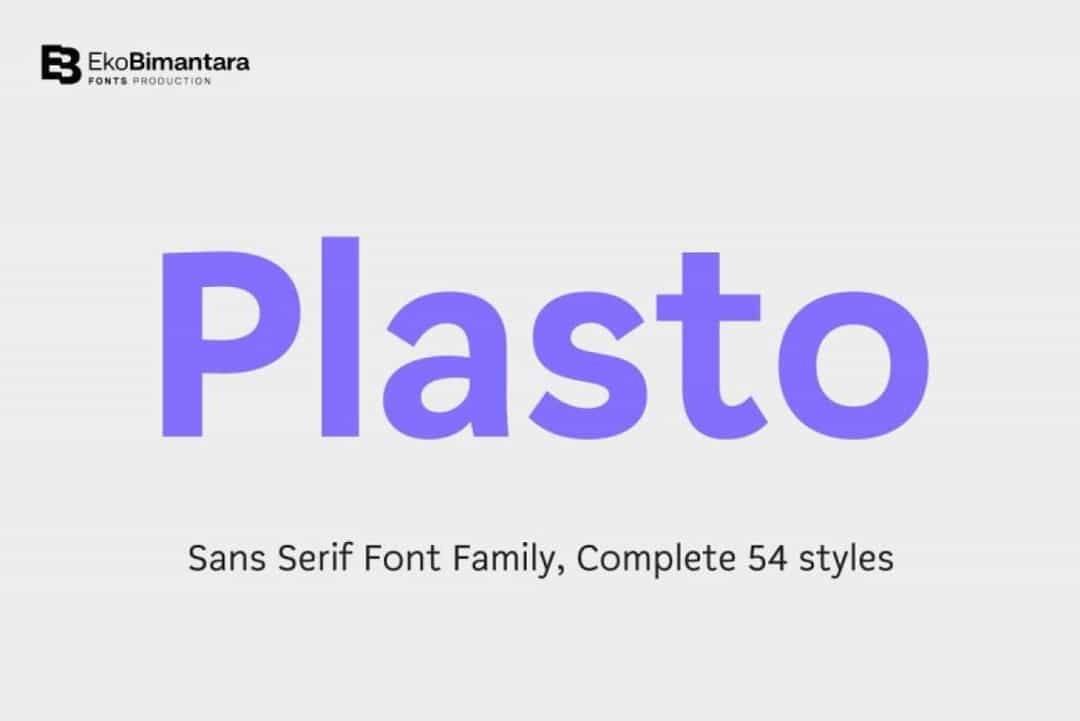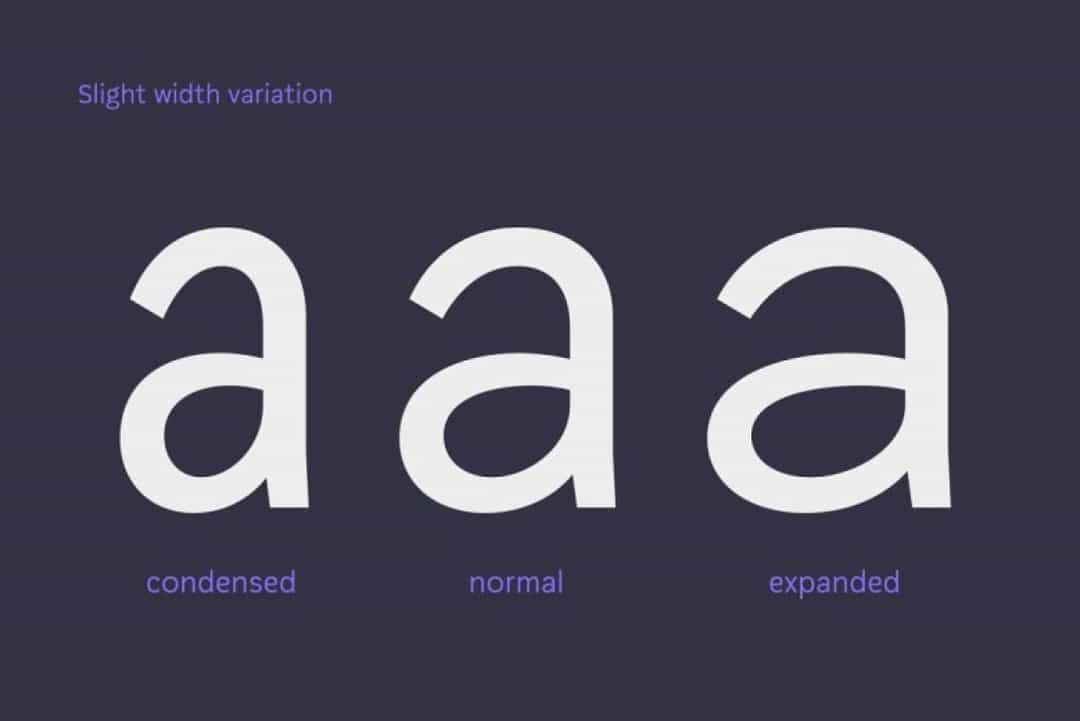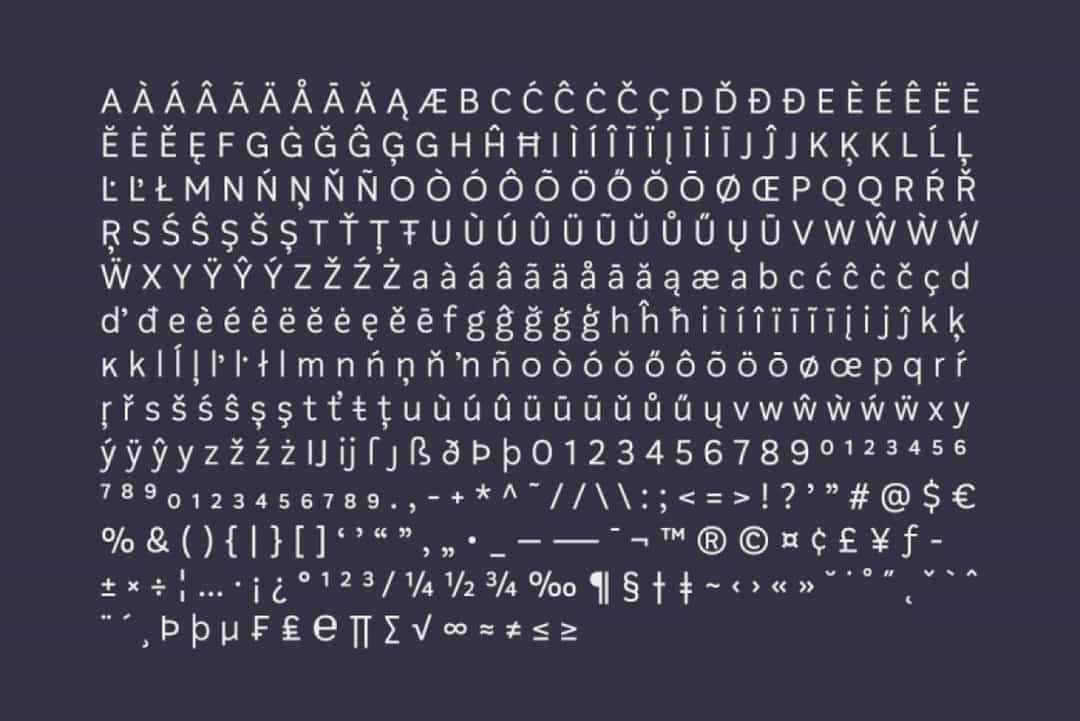
Plasto is a full grottesk sans serif family featuring unique letterforms and small width variations to give it its distinctive, playful appearance. With plastic-looking letterforms and flexible width variations, it makes an attractive layout graphic suitable for many design environments; especially suitable for informal or practical purposes, including large displays as well as smaller fonts. In total there are 54 styles in Plasto’s family with two axes of width and weight variation.